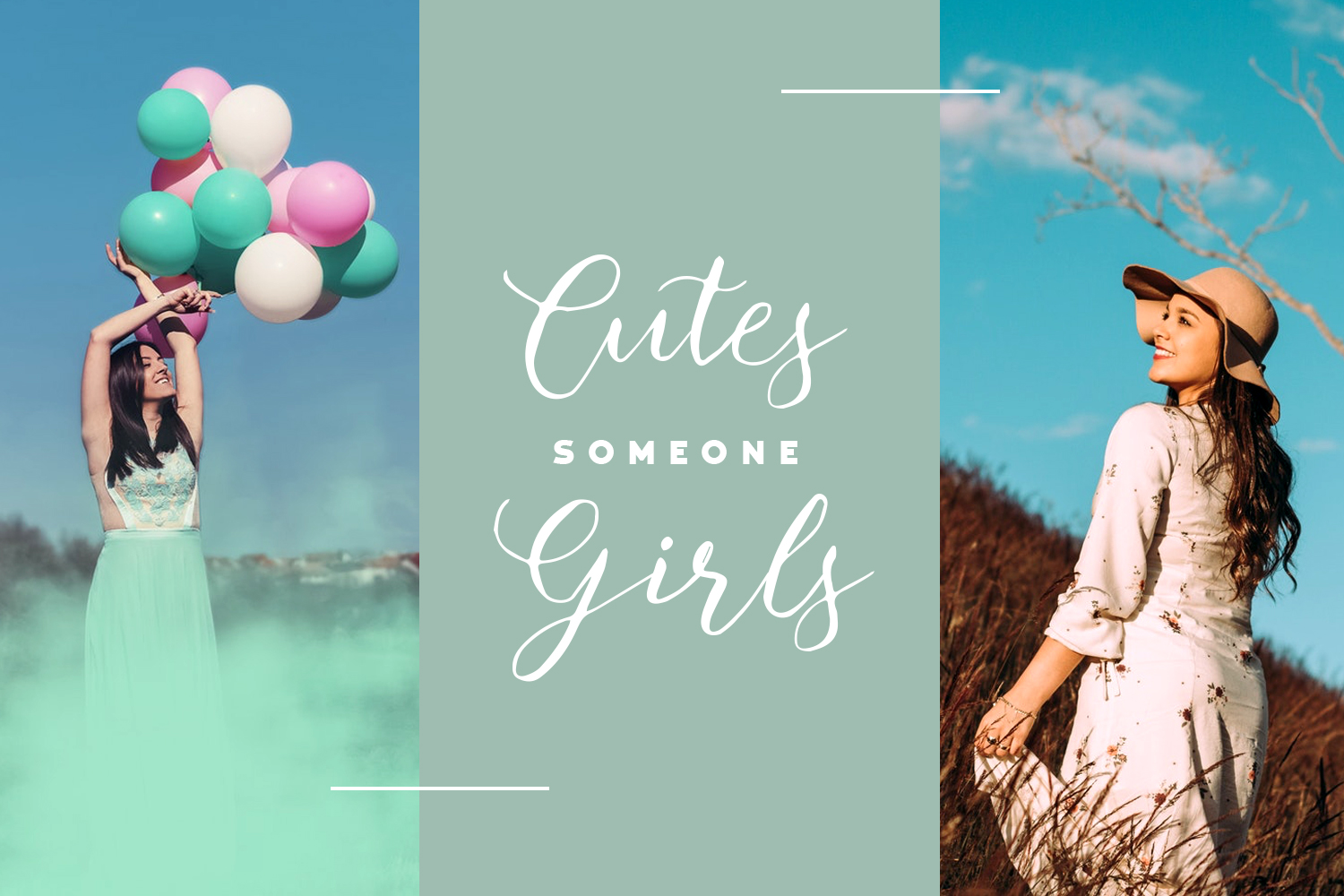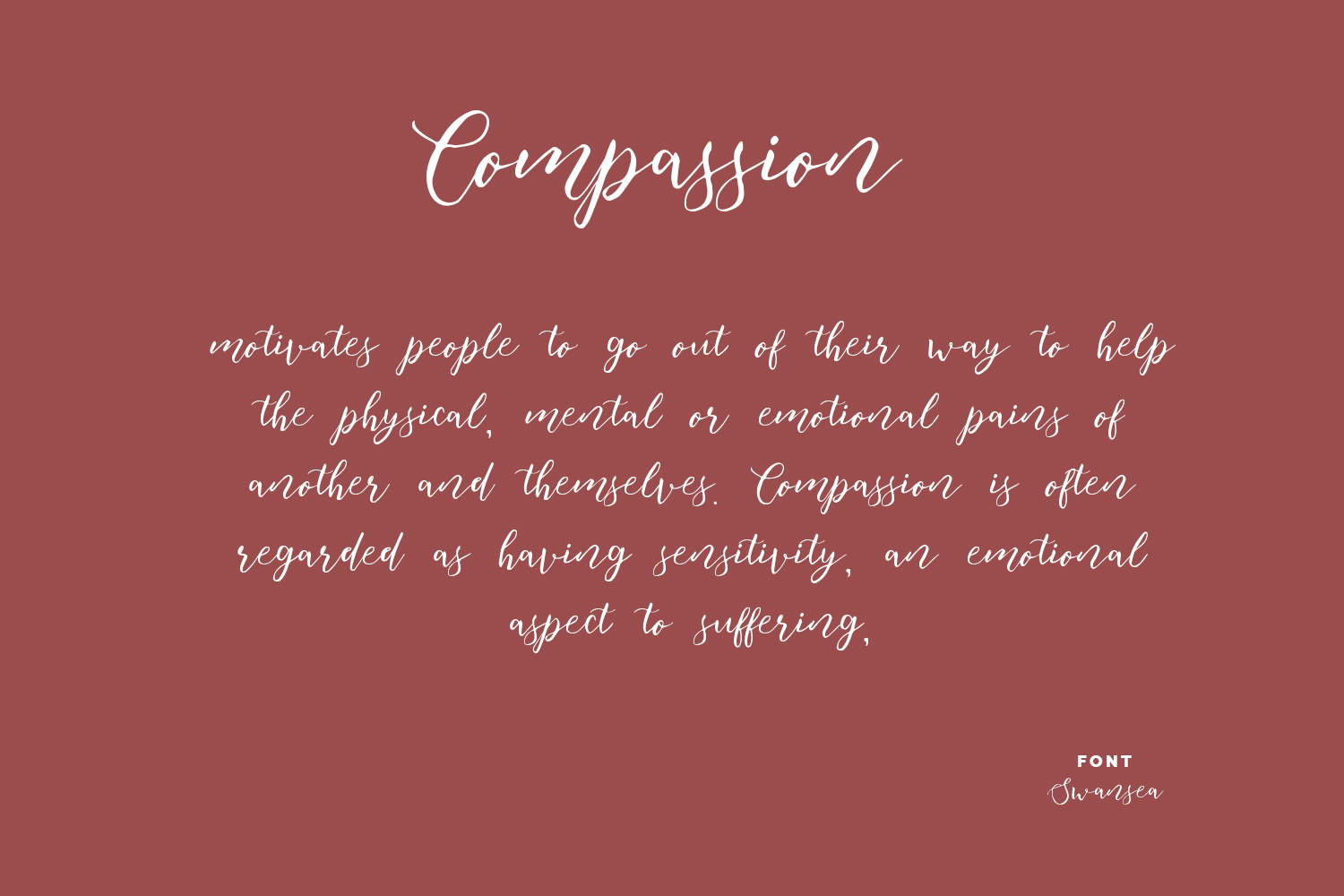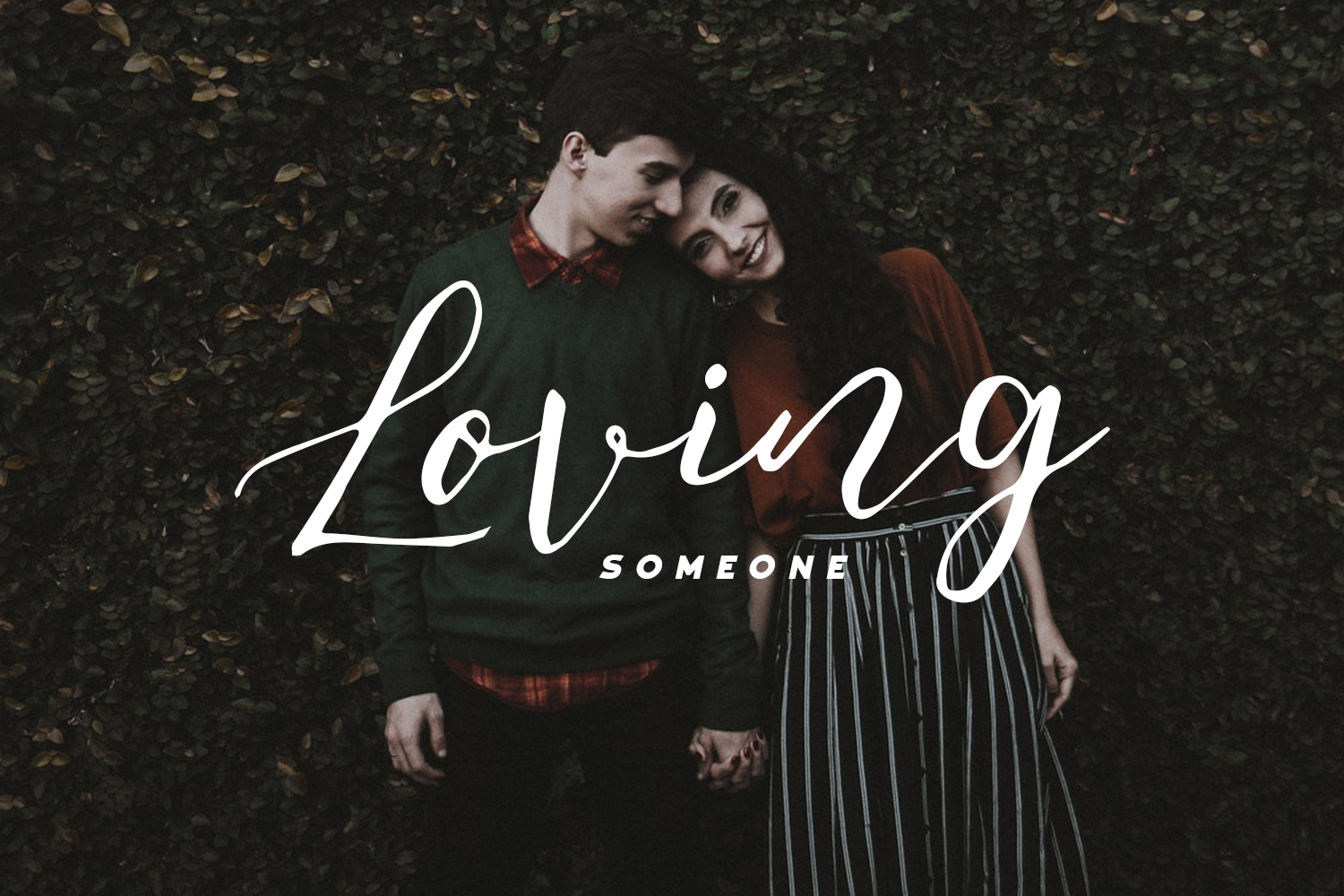
HomeScript FontsSwansea Font Script Fonts Swansea Font FacebookXPinterestWhatsApp Swansea Font Poster 2 Swansea Font Poster 3 Swansea Font Poster 4 About Swansea Font Swansea is a handwritten script font based on actual physical handwriting. DOWNLOAD ON CREATIVE FABRICAThis font is sold and delivered by Creative Fabrica. Font Canyon may earn a commission if you buy through this link. People also explored La Amosta Font Excellent Font Jhonny Welbecky Font White Butter Font Sugared Dreams Font Bafalia Font Dominic Font Laro Soft Font Black Roast Font 374 0 TagsSwansea Font Previous articleRelang FontNext articleSweaty Font LEAVE A REPLY Cancel reply Comment: Please enter your comment! Name:* Please enter your name here Email:* You have entered an incorrect email address! Please enter your email address here Website: Save my name, email, and website in this browser for the next time I comment. Personal Use Free Scoothlane Personal Use Free Read more about this font New Normal Personal Use Free Read more about this font Vembazax Rm Personal Use Free Read more about this font Rocketto Personal Use Free Read more about this font BLOG How to Install and Use Fonts on Windows, macOS, and Web Projects How to Install and Use Fonts on Windows, macOS, and Web Projects Fonts are a crucial part of design and branding. Whether you’re designing a... Elegant Wedding Invitation Fonts – Handwritten & Script Fonts Transform Your Website: Elevate Your Typography with 7 Best Web Font Generators To increase your work productivity, choose the most readable fonts.